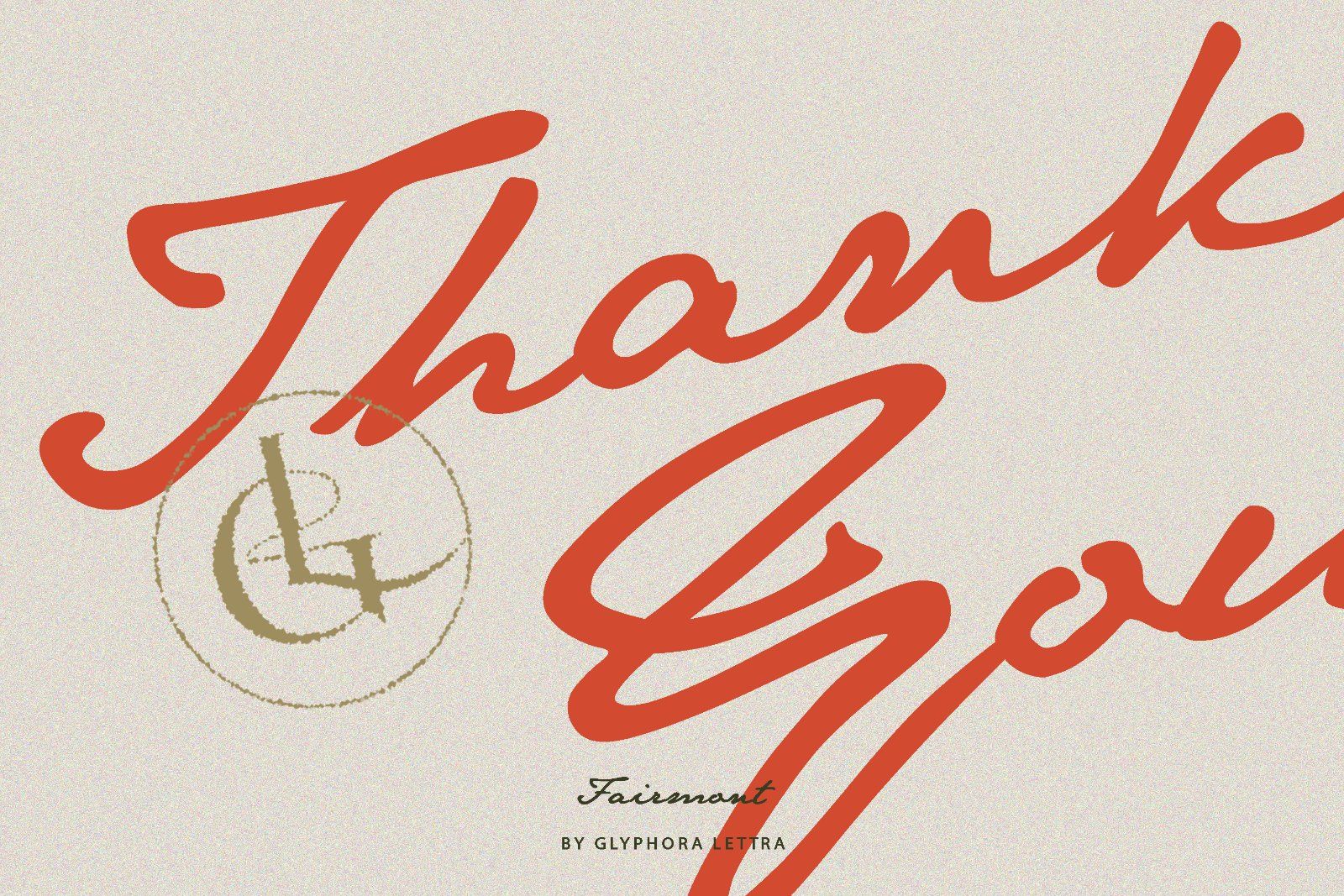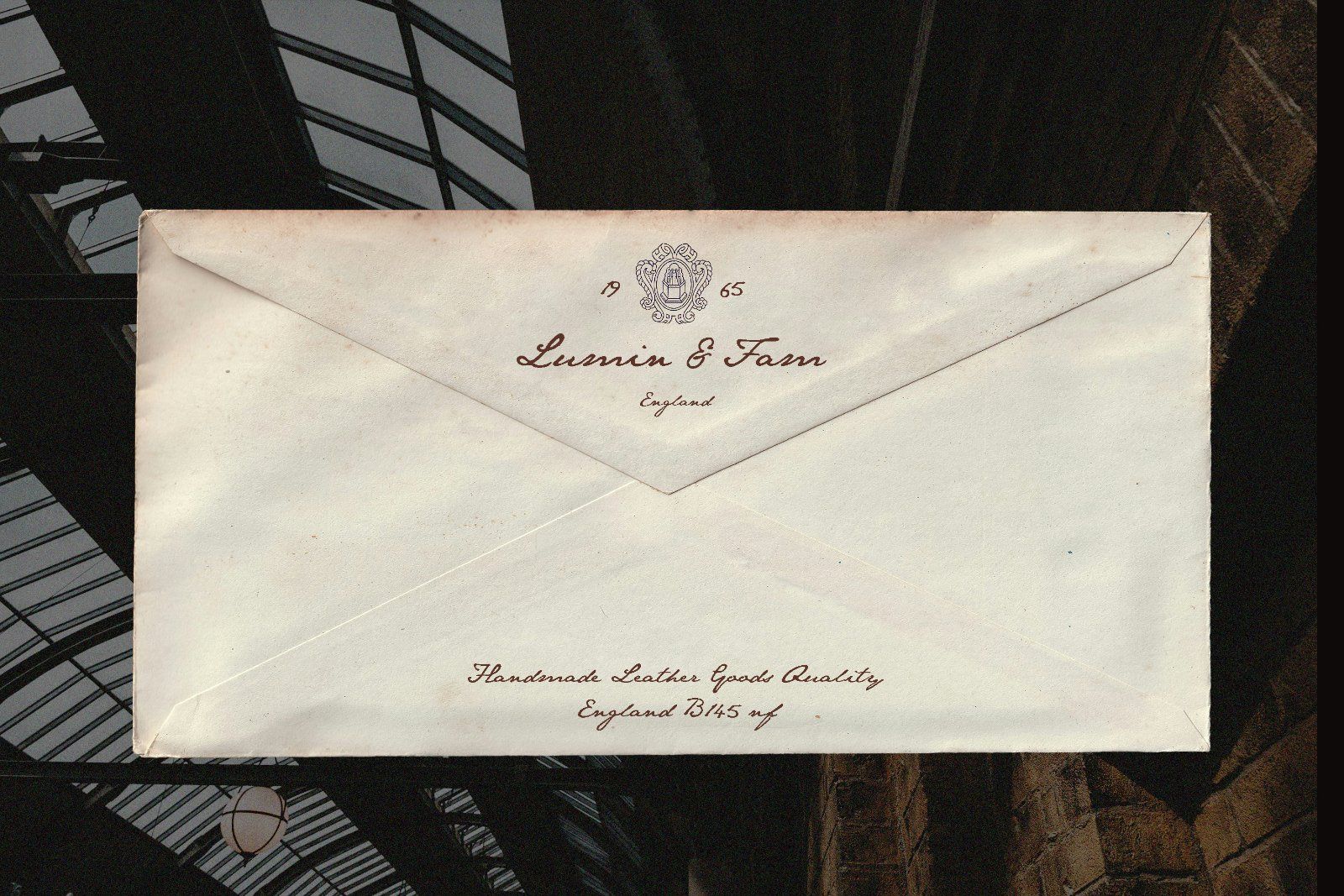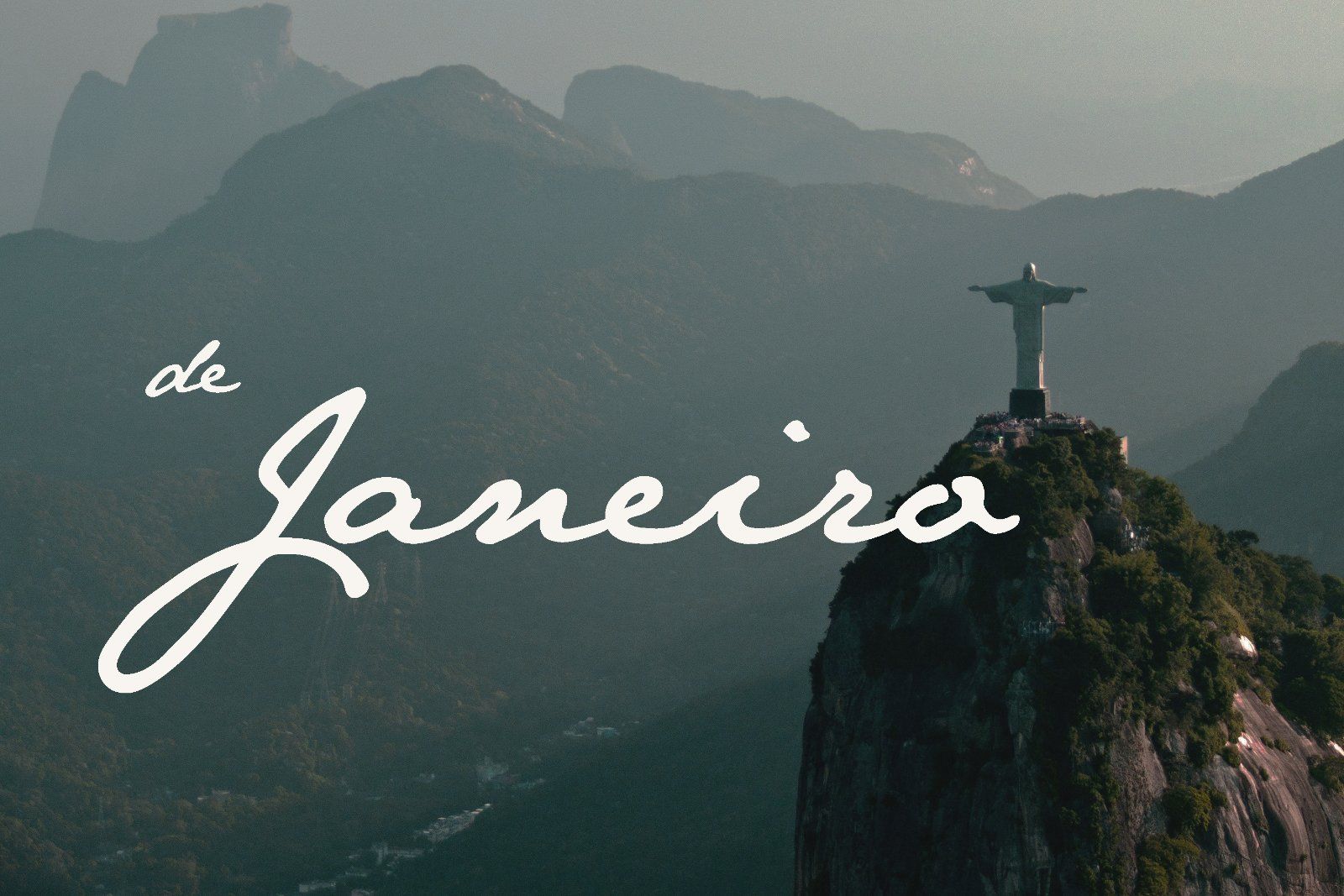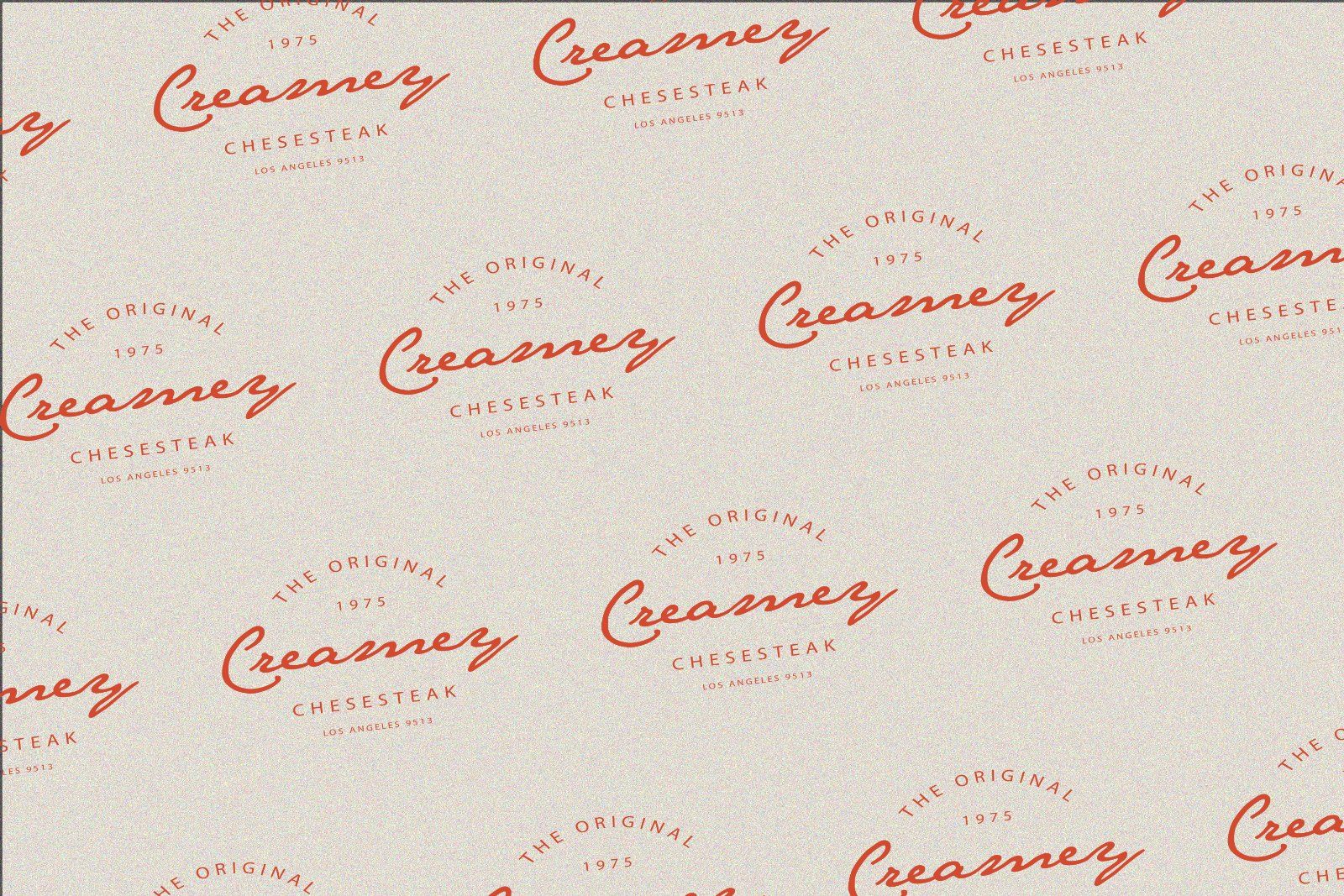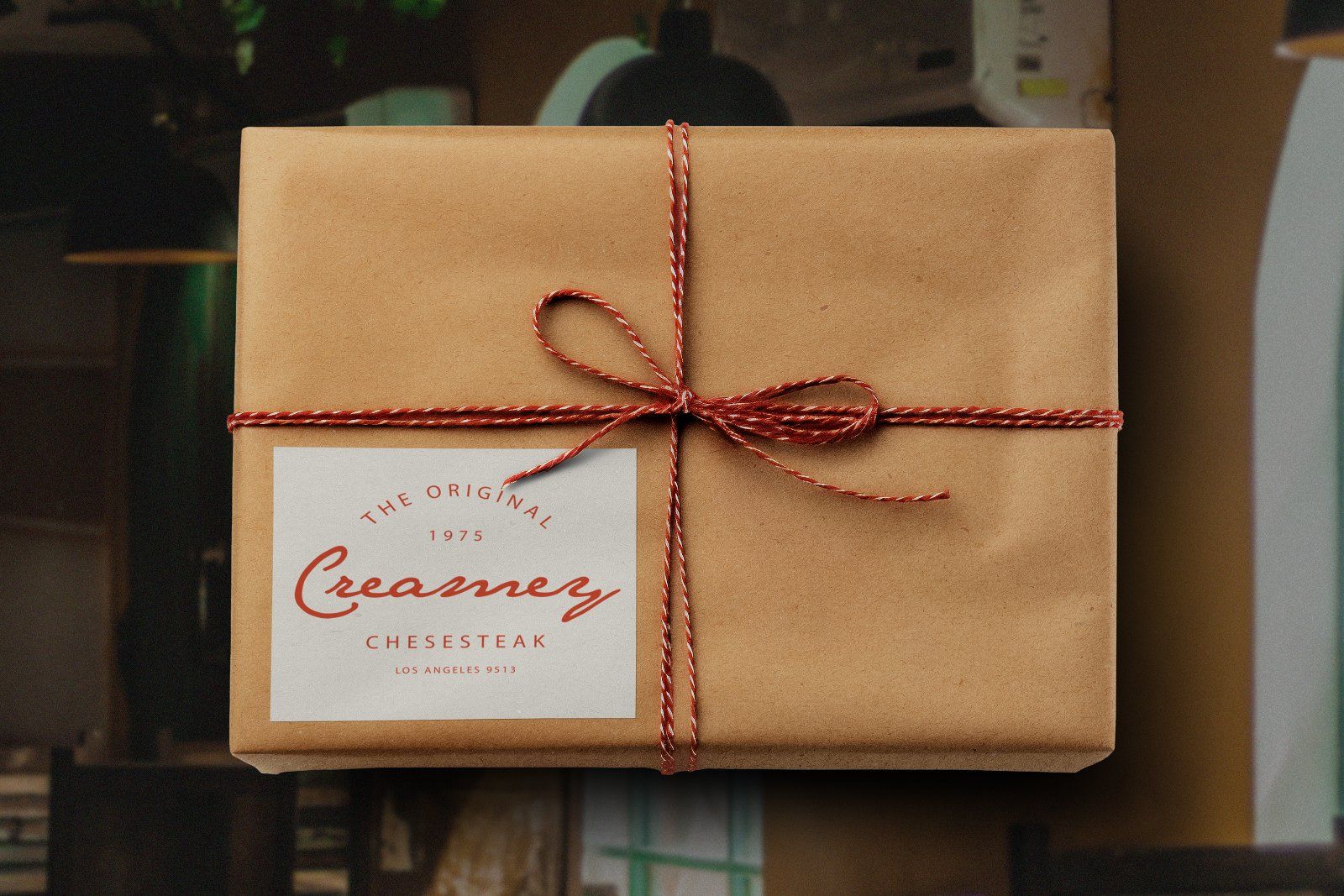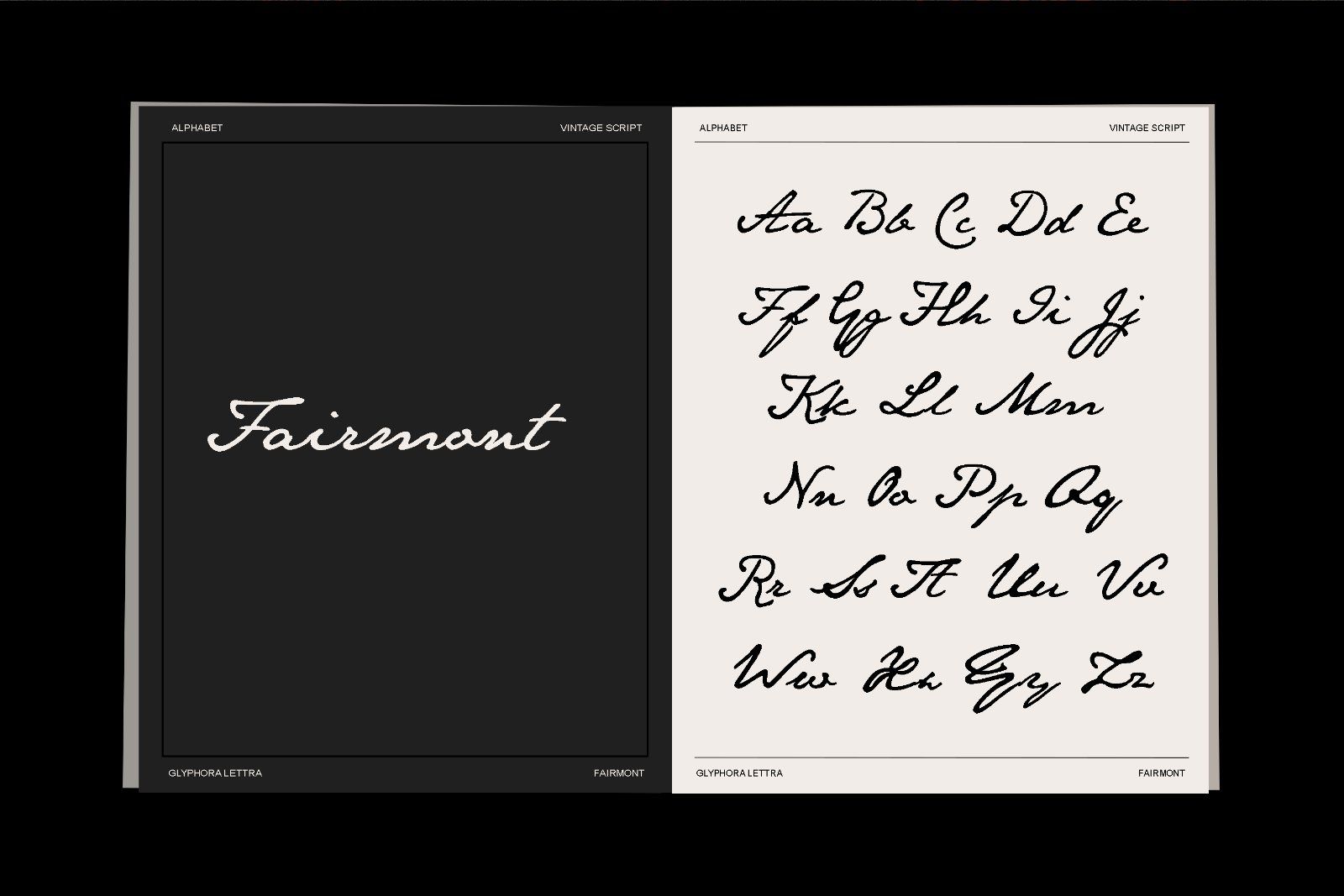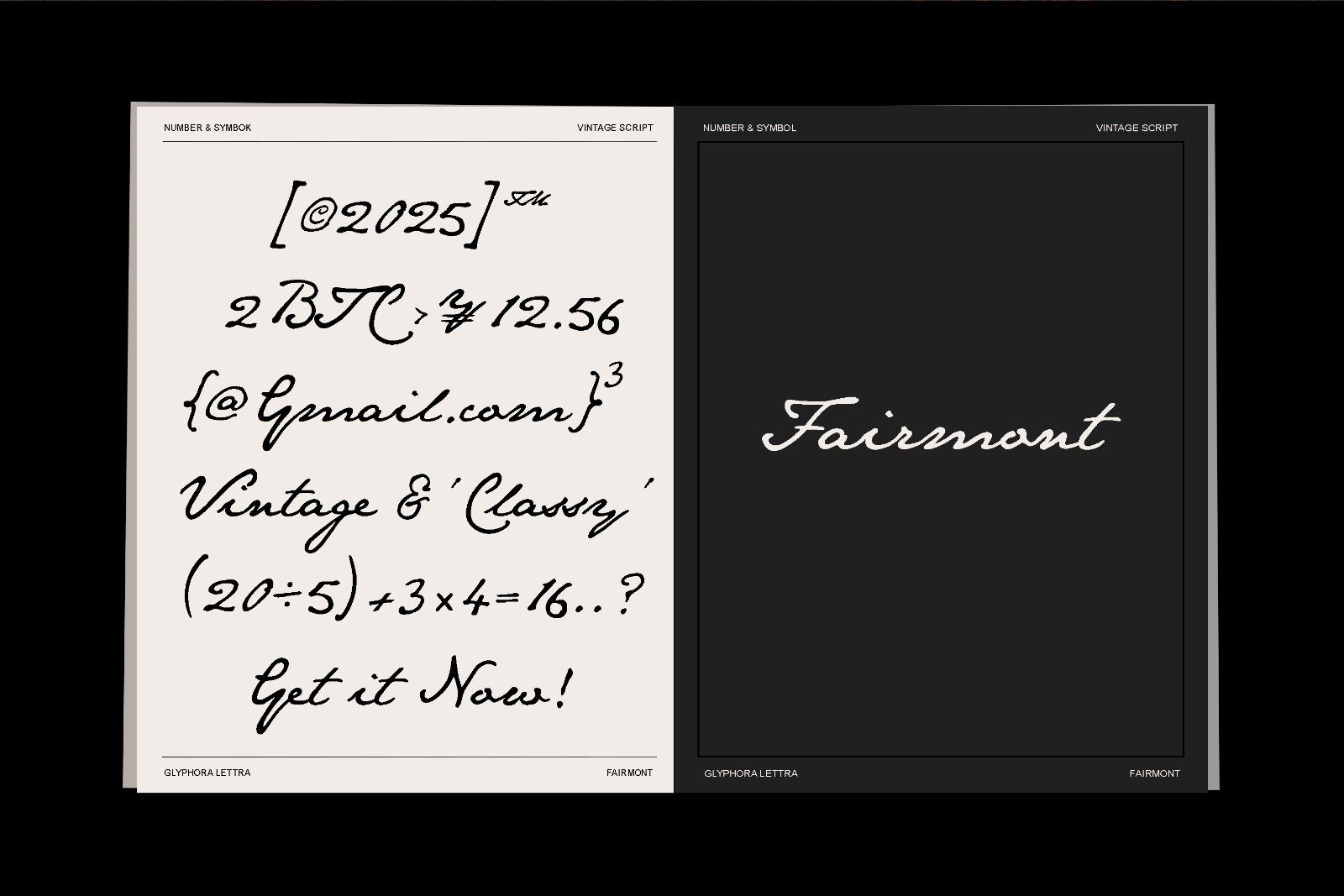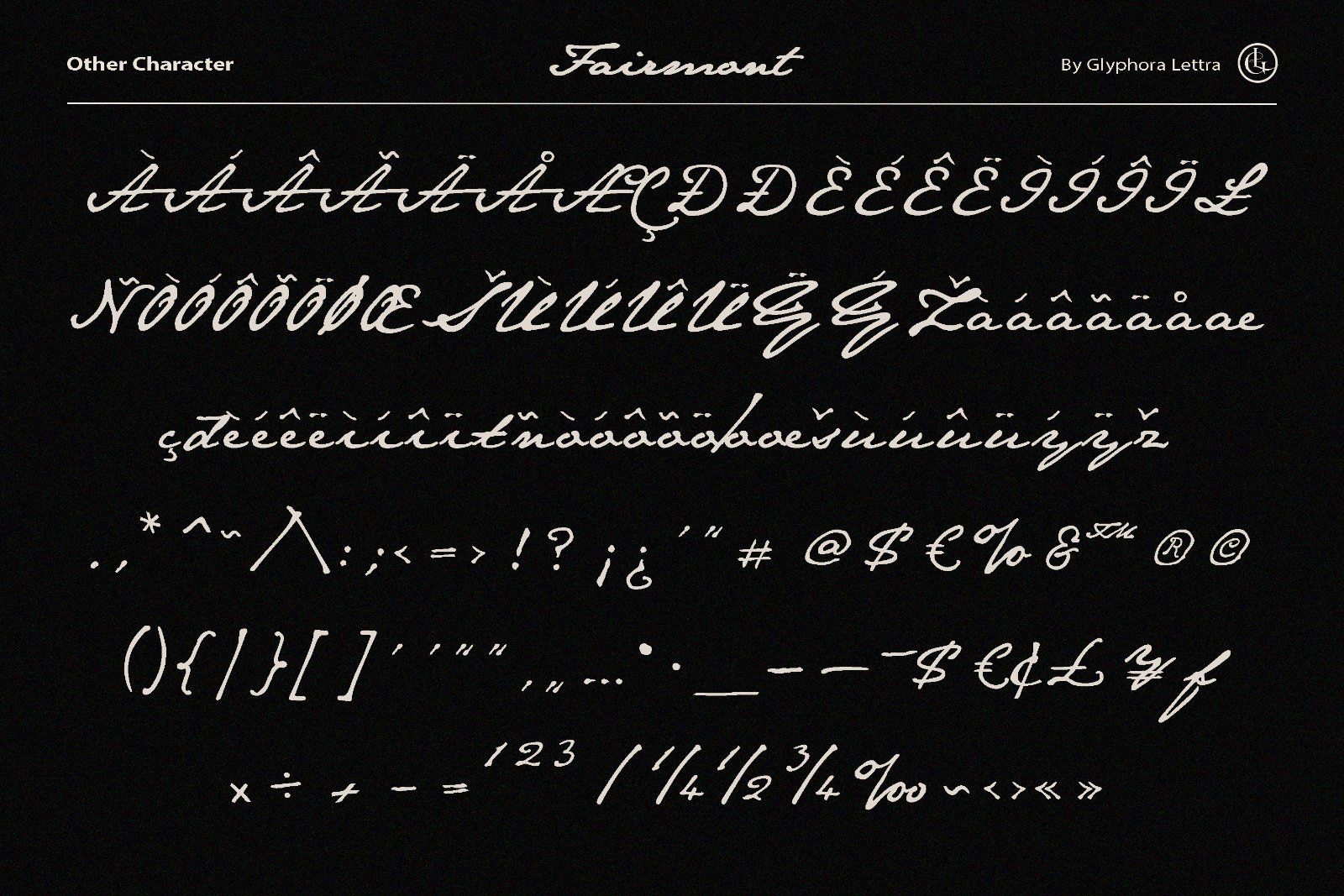
Fairmont – Handwritten Vintage Typeface
Fairmont is a timeless handwritten vintage typeface inspired by classic seaside elegance and nostalgic charm. With its smooth flowing strokes, natural curves, and authentic handwritten feel, this font brings warmth, sophistication, and a touch of retro romance to any design.
Carefully crafted to capture the beauty of vintage lettering, Fairmont feels both effortless and refined — perfect for designers who want to create branding with personality and character.
• Elegant handwritten script style
• Uppercase & lowercase characters